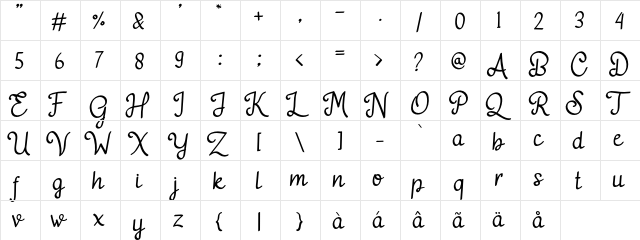
adelitha demo Regular
| Foundry | jozgandoz |
| Designer | jozgandoz |
Design Context for adelitha demo Typeface
adelitha demo takes a measured approach to typography — its balanced proportions and neutral character make it a reliable workhorse for both digital and print work.